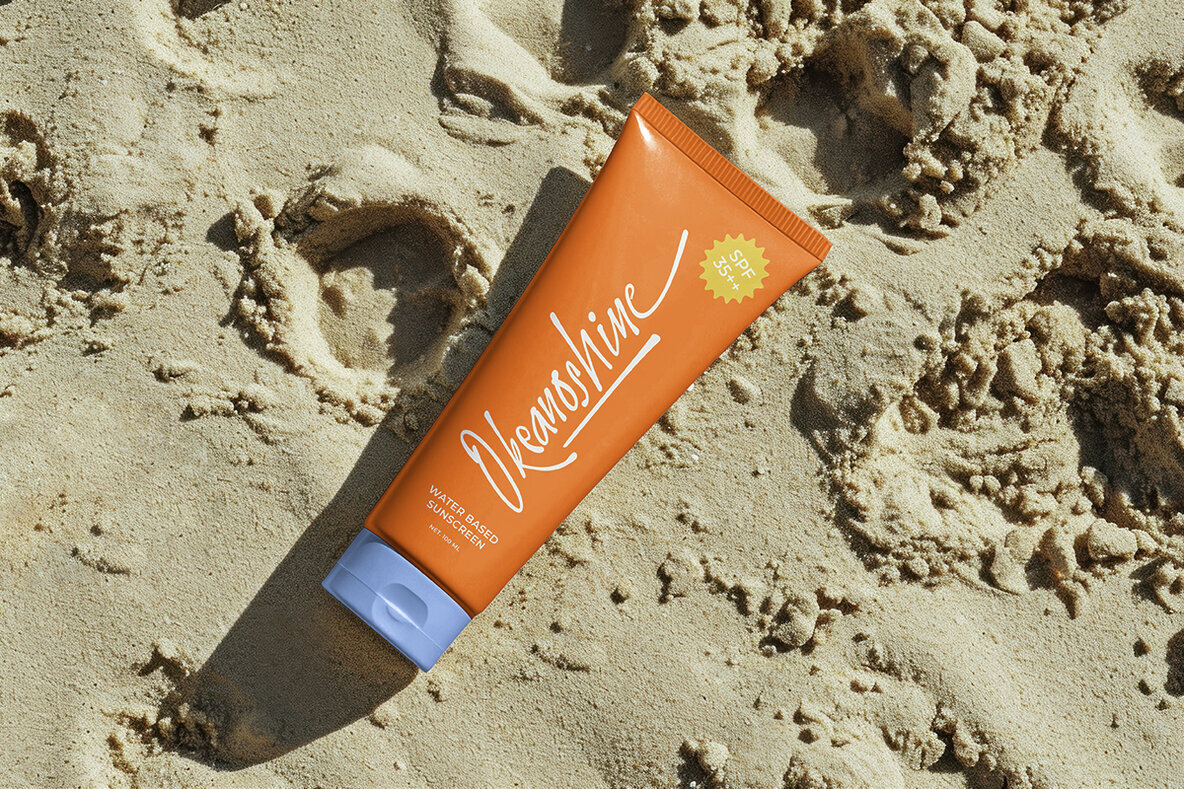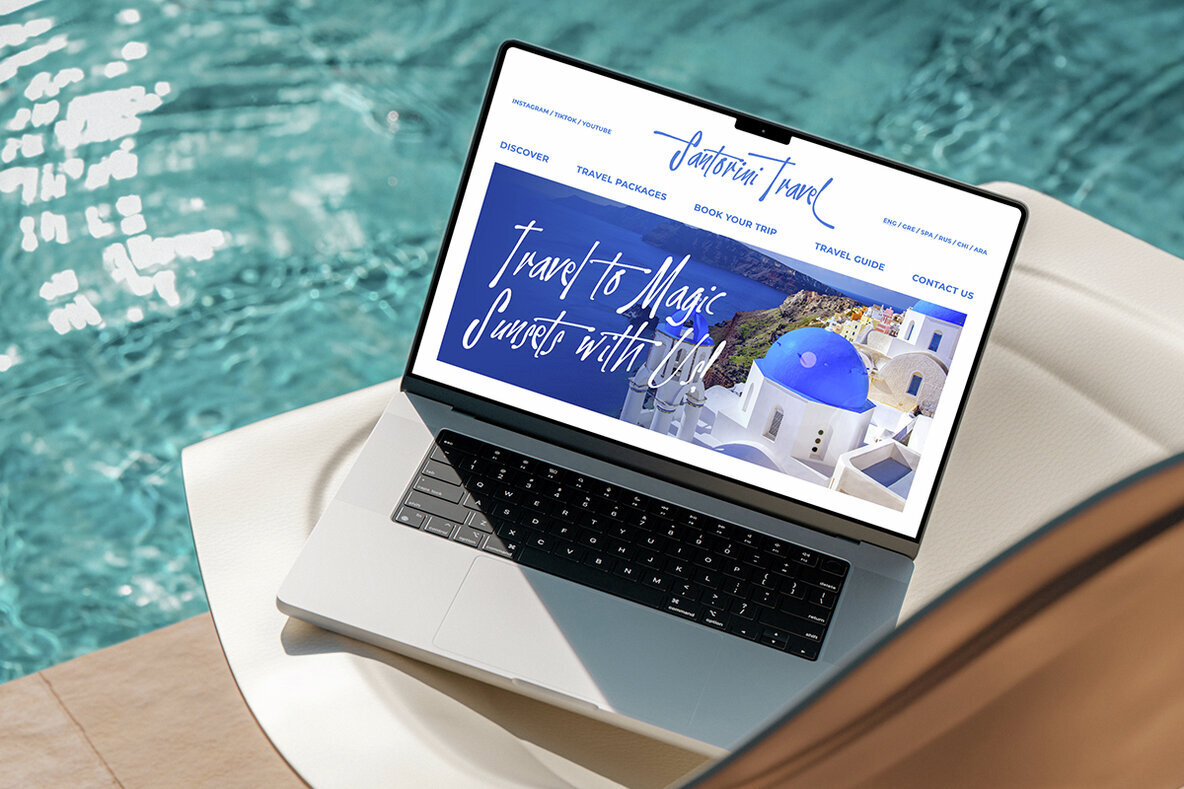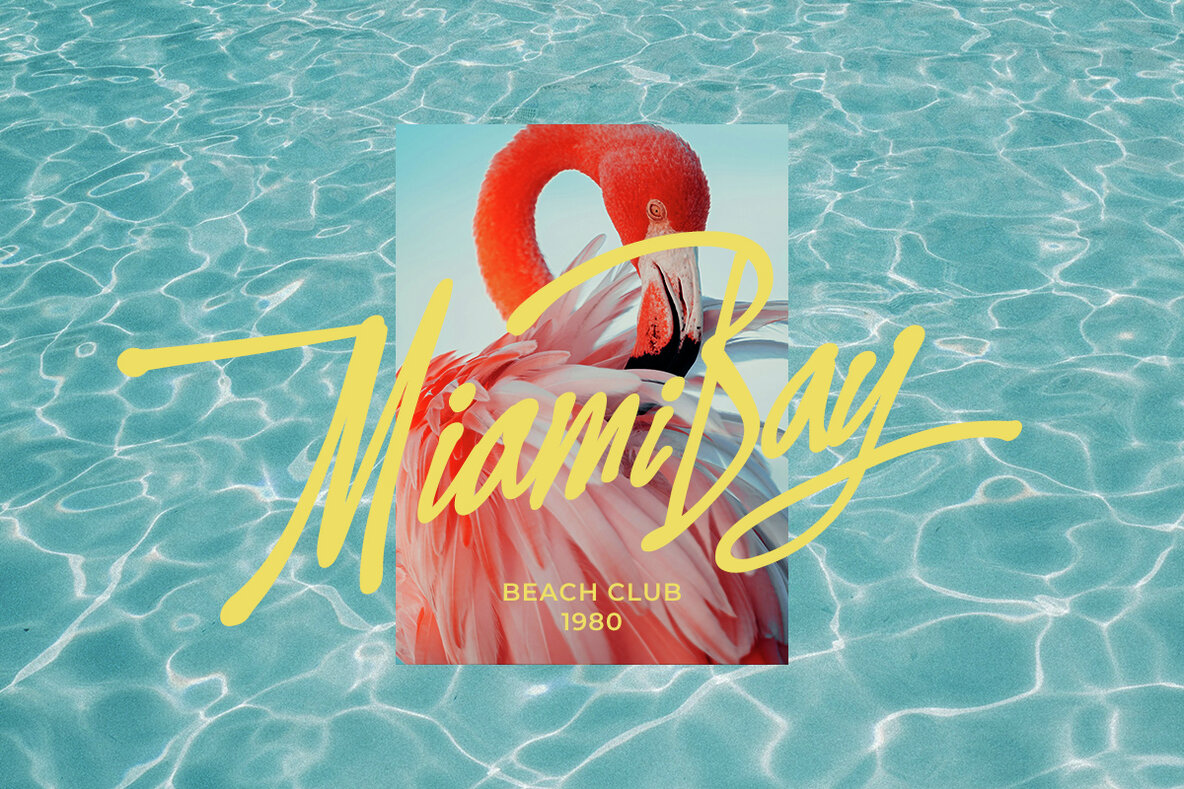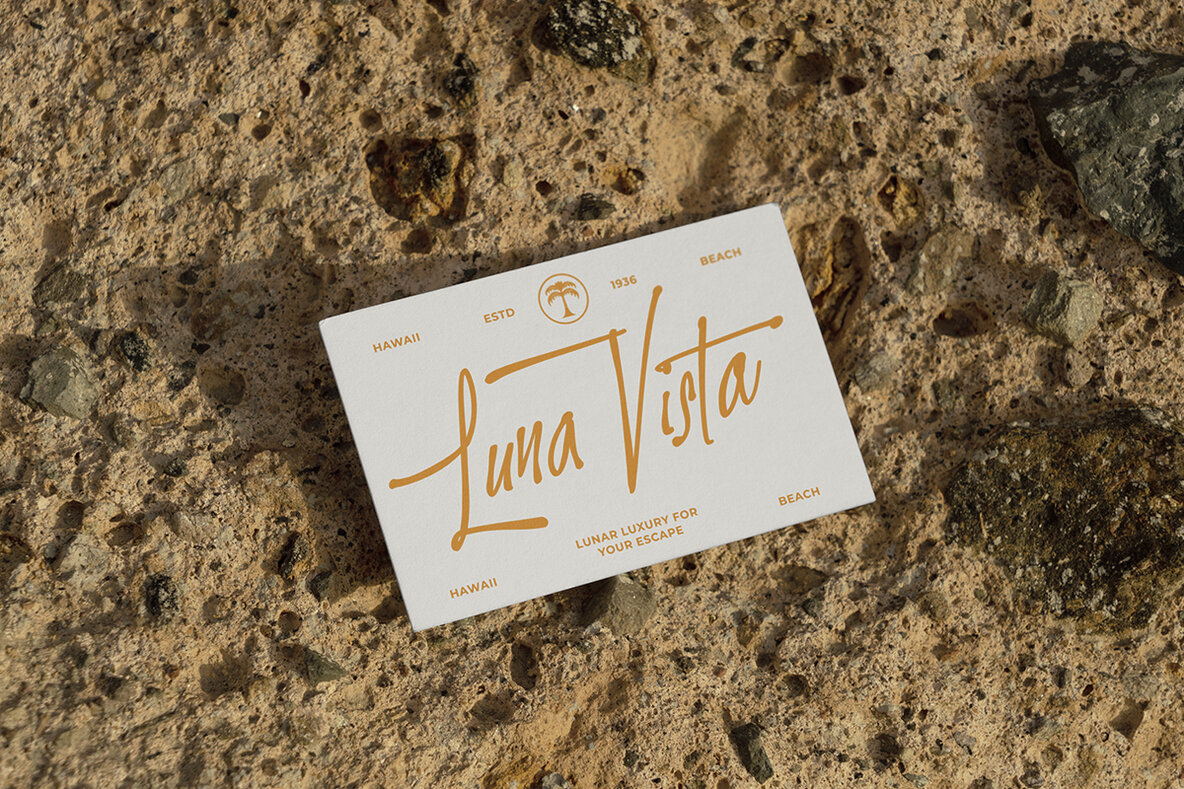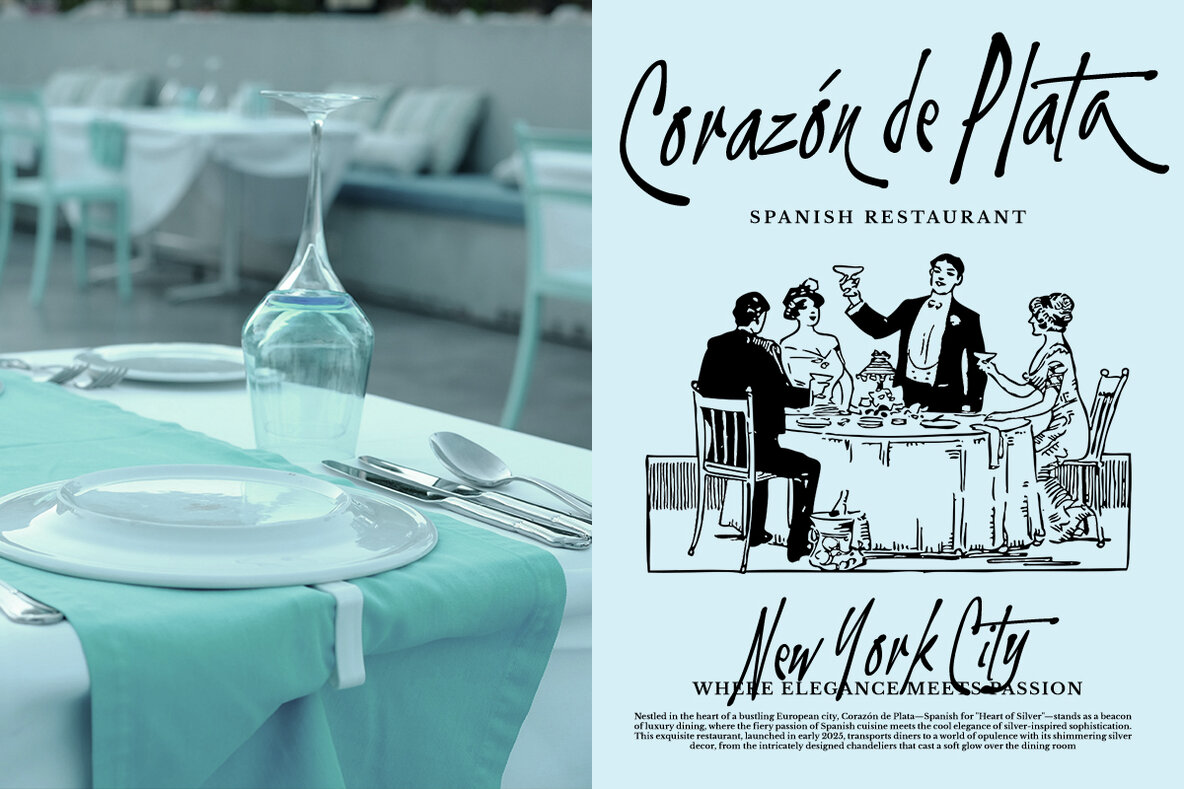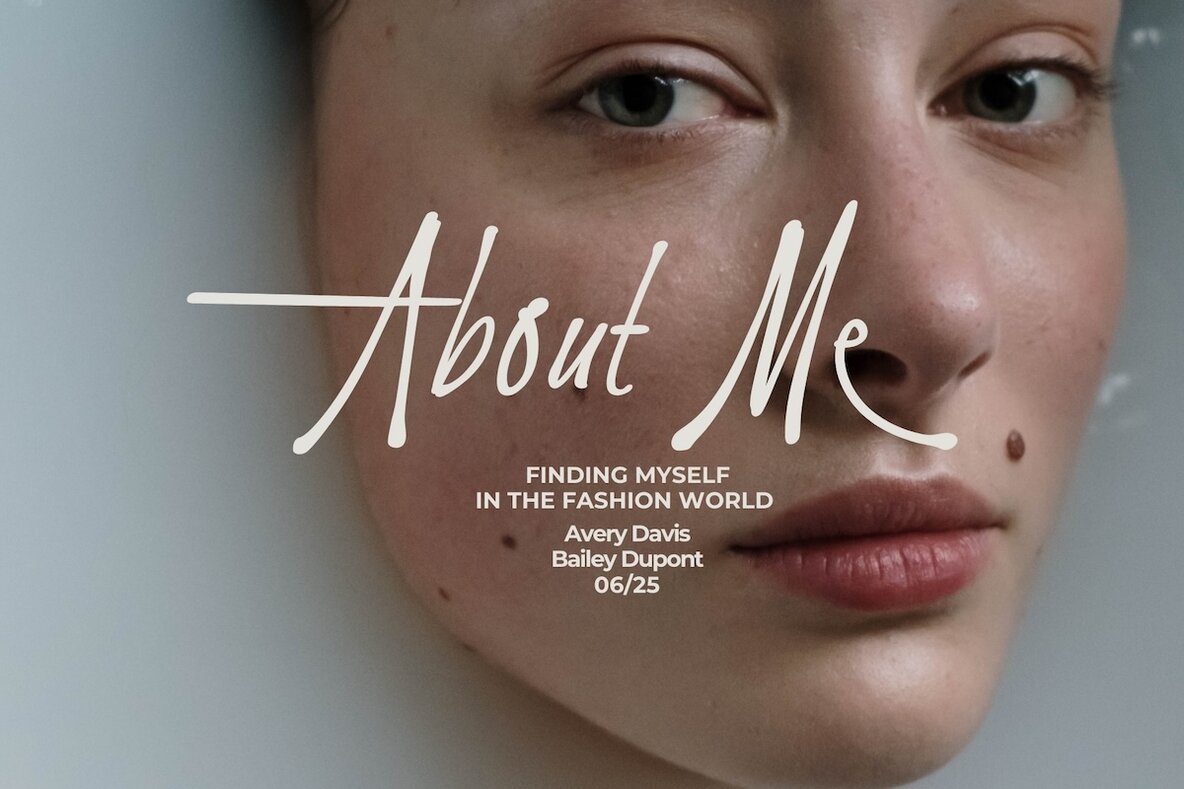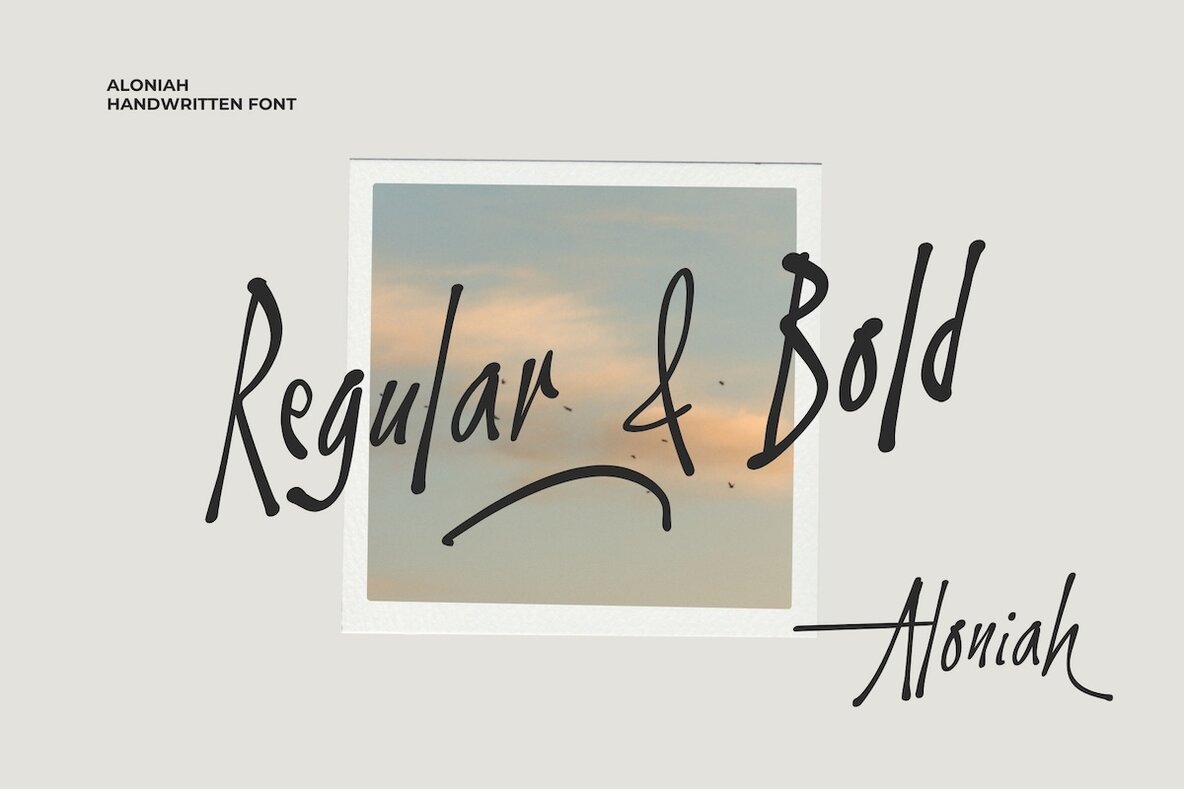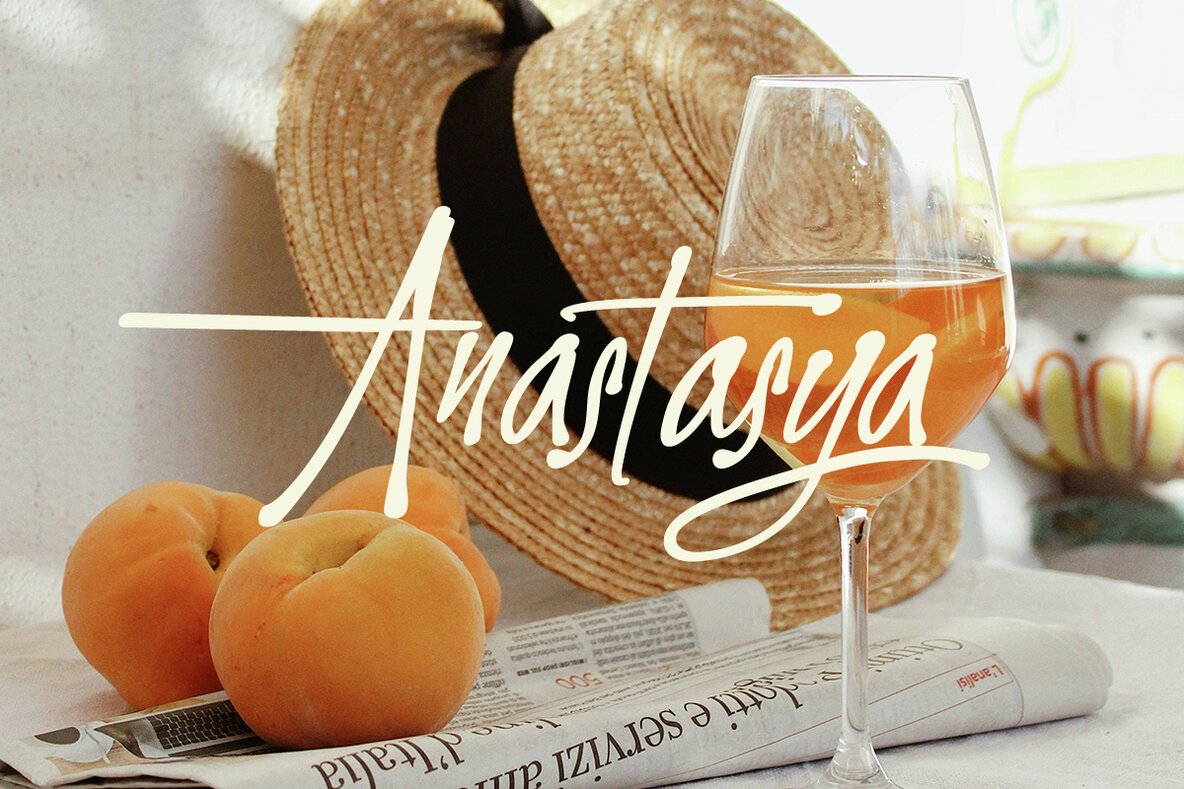
Aloniah Font
Aloniah is a stunning handwritten font that seamlessly combines elegant penmanship with expressive, natural strokes. Featuring smooth monoline curves and a dynamic flow, this font exudes a casual yet refined aesthetic. Available in two distinctive styles – Regular and Bold – Aloniah is the ideal choice for adding a personal touch to branding projects, wedding invitations, aesthetic quotes, and social media content. Each character in Aloniah is meticulously crafted to provide a fluid and authentic writing experience. The font is enriched with swashes, alternates, and ligatures, offering exceptional flexibility and style choices for your creative endeavors. Aloniah is the perfect pick for designers aiming to incorporate a graceful, artistic, and feminine elegance into their work.Aloniah Handwritten Font